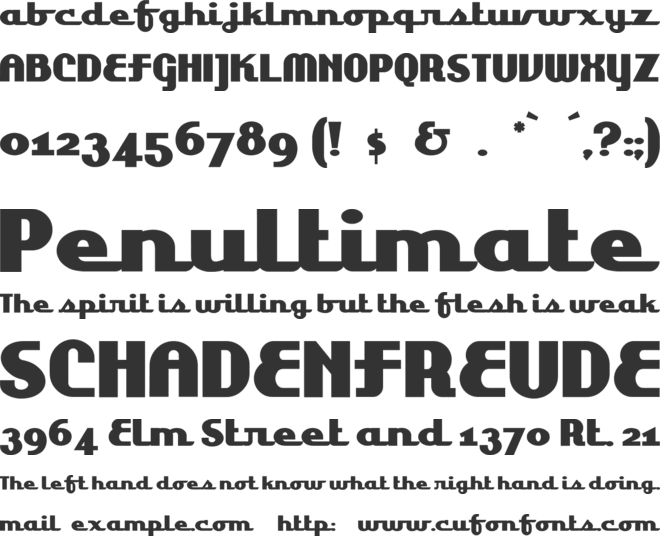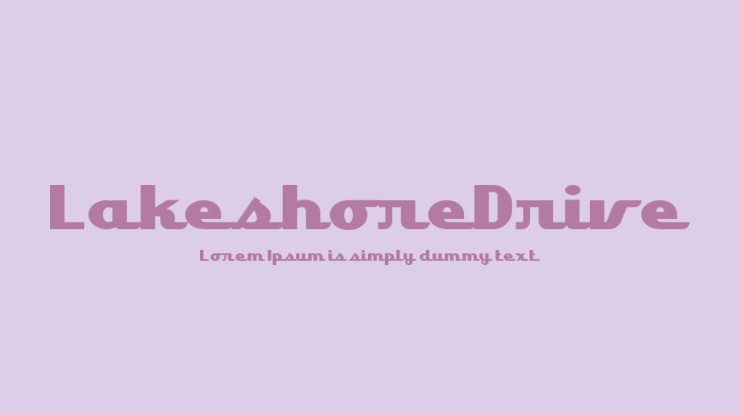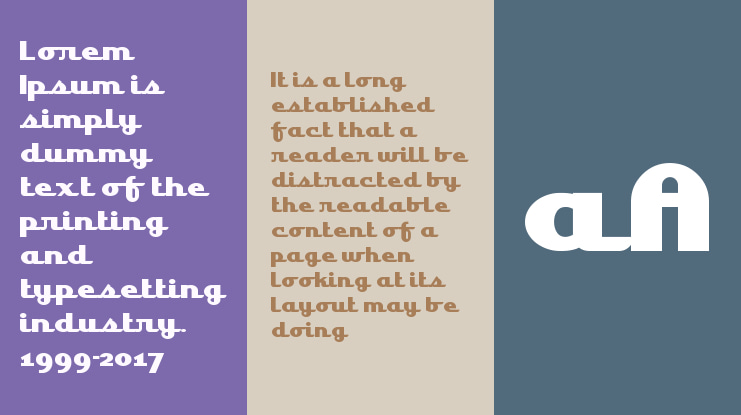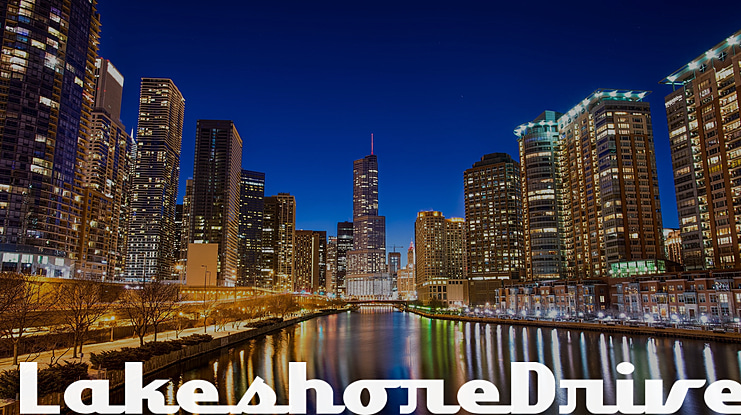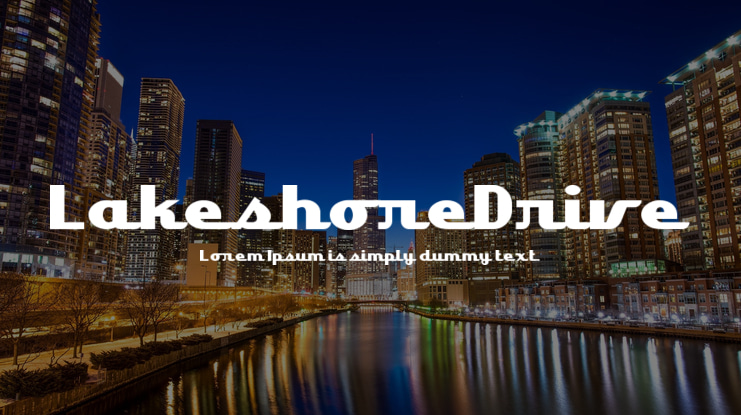
LakeshoreDrive Font
Yuji Adachi created a semiscript called Bangalore designed to be used nine pixels high with no anti-aliasing on web pages, so essentially it’s a mass of blocks stitched together in an eye-pleasing way. I smoothed out the letterforms to create this adaptation, named for a classy address in Chicago.